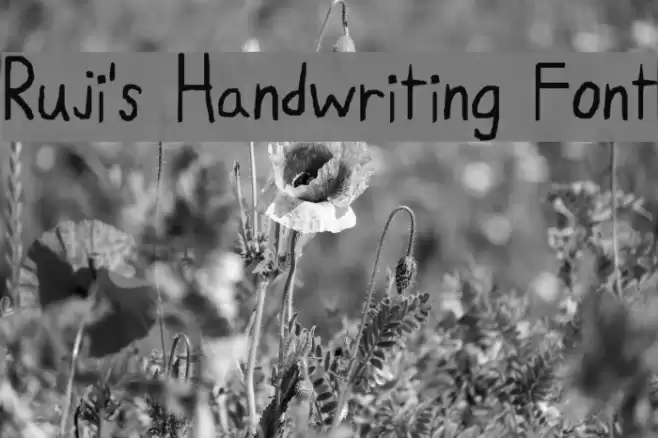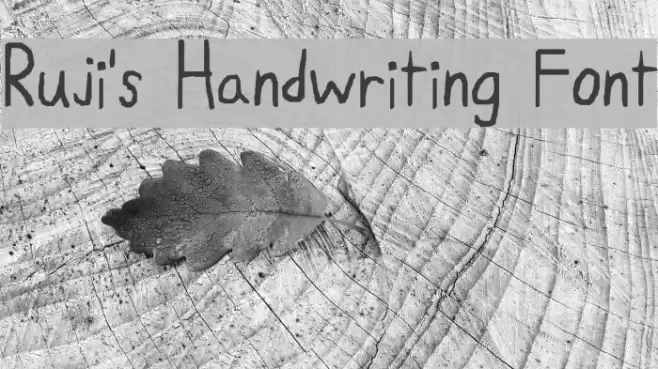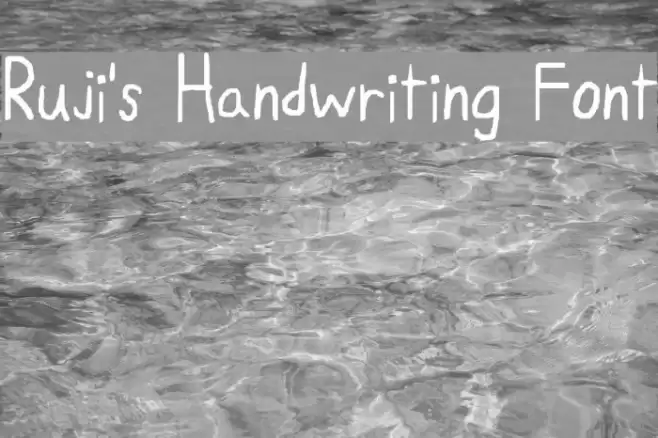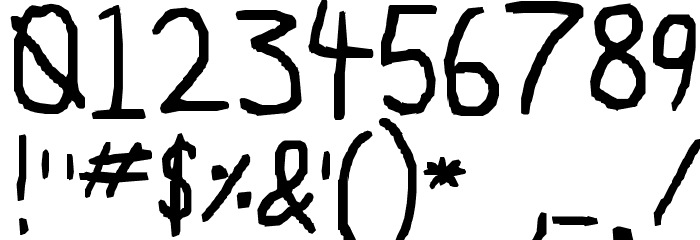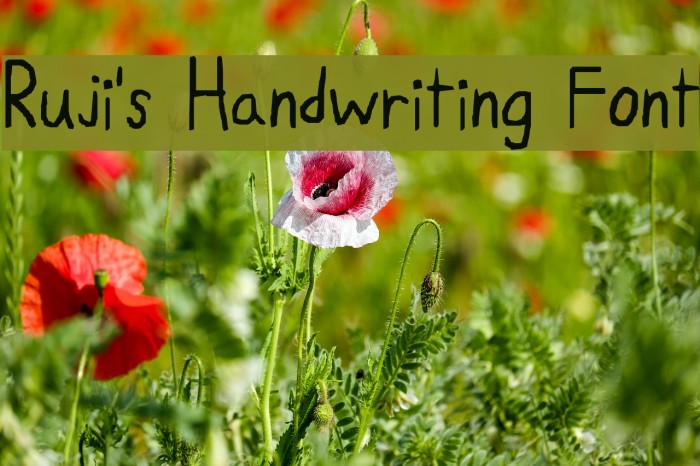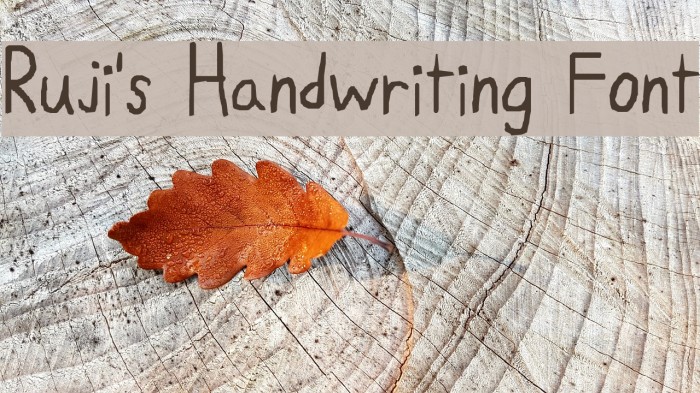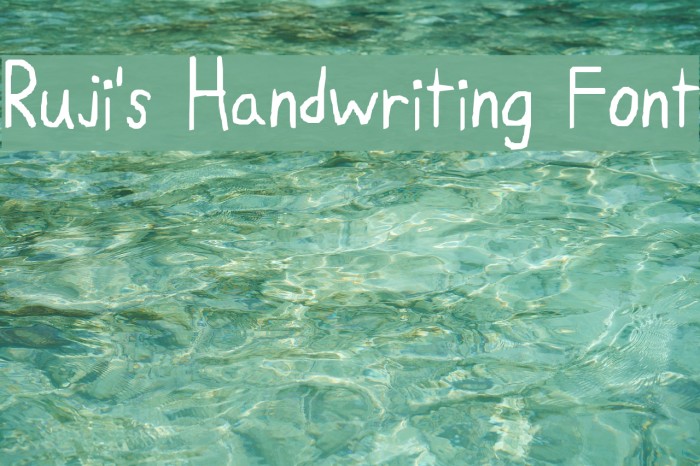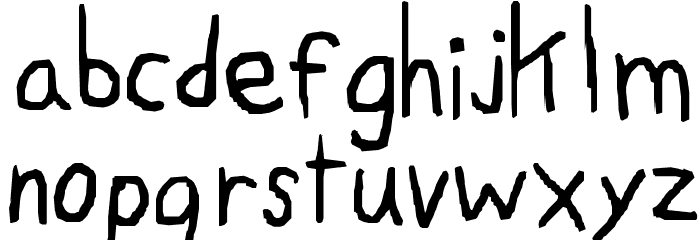
Ruji's Handwriting Font Font
Ruji's Handwriting Font Description
This font exudes a casual and personal touch, reminiscent of authentic handwriting. The characters are unevenly spaced, adding to its informal charm. Each letter is distinct, with a playful and slightly irregular form that mimics natural handwriting. The strokes are bold and consistent, providing a clear and legible appearance. This style is perfect for projects that require a personal or informal tone, such as greeting cards, personal notes, or creative projects. The font's simplicity and straightforwardness make it versatile for various uses while maintaining a unique, handcrafted feel.
A casual, handwritten-style font with bold, playful strokes from Uncategorized fonts.
- Proposed Projects: Ideal for greeting cards, personal notes, creative projects, and informal branding.
- Overall Style: Casual, Handcrafted
- Use Case: Headlines, Informal text, Creative projects